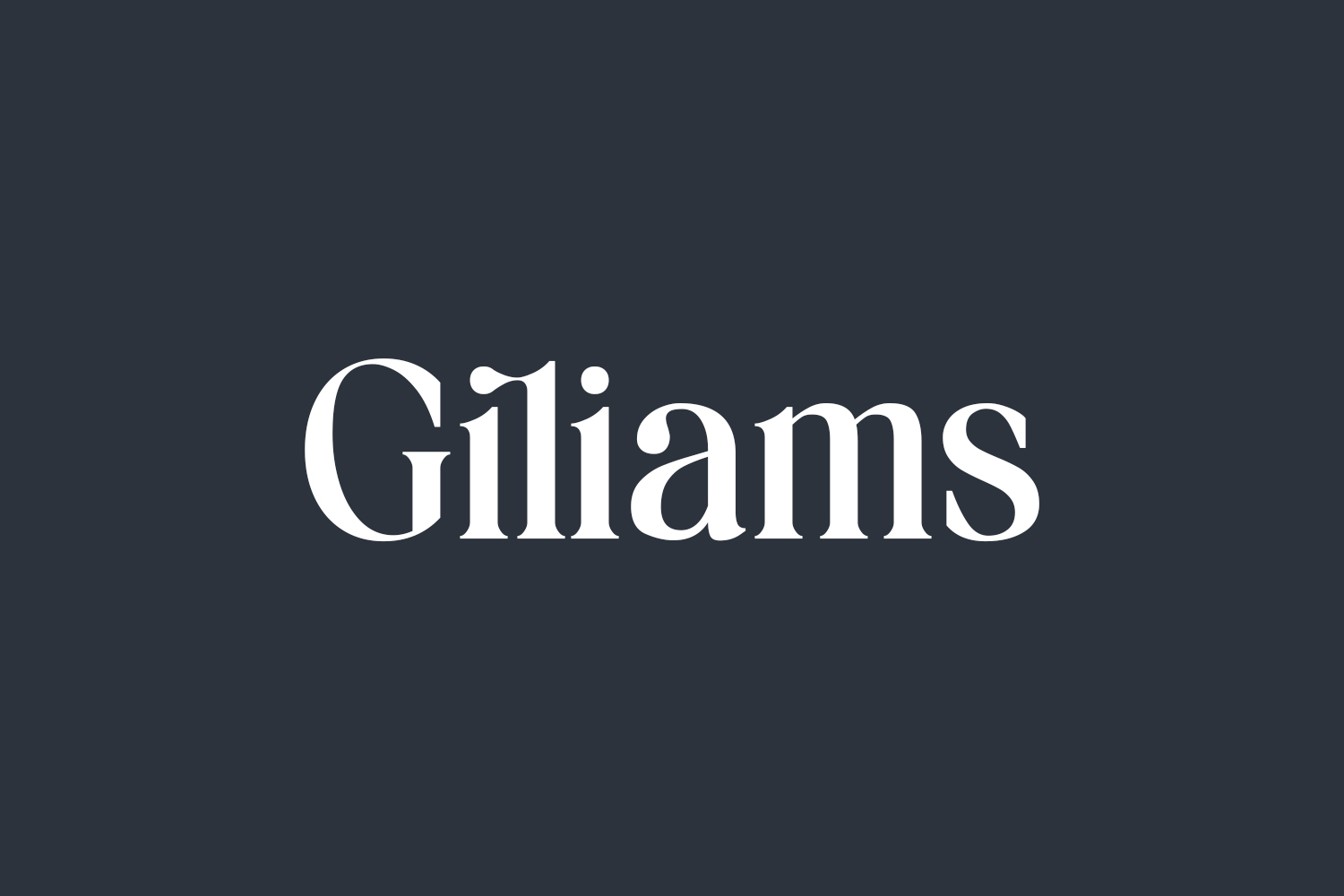
Giliams Free Font is an elegant, delicate and distinct serif font. This font is imposing and features uniquely shaped letters, and as a result, it will easily match a wide range of creations that require a trendy touch. Giliams Free Font was designed by BrandSemut and is free for personal use only. Please purchase the full version for commercial use.
Designed by BrandSemut